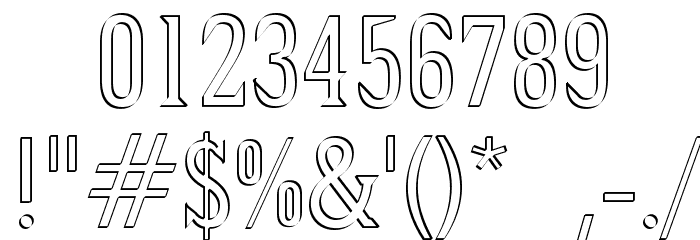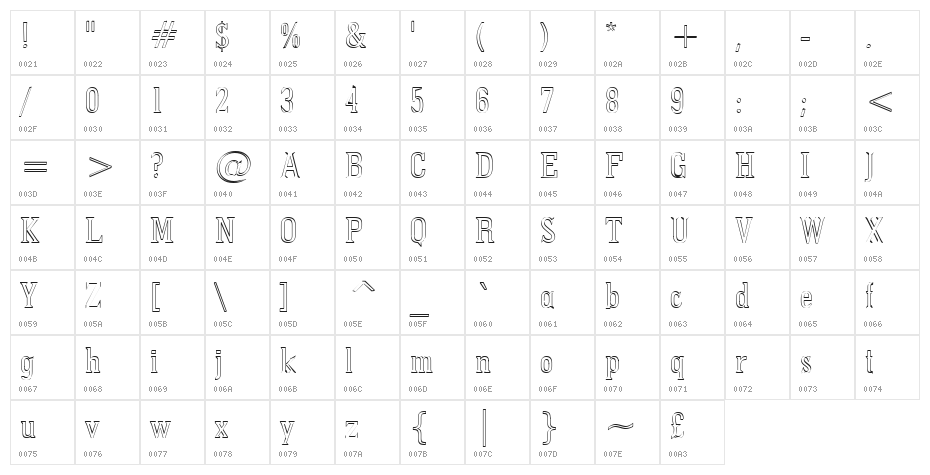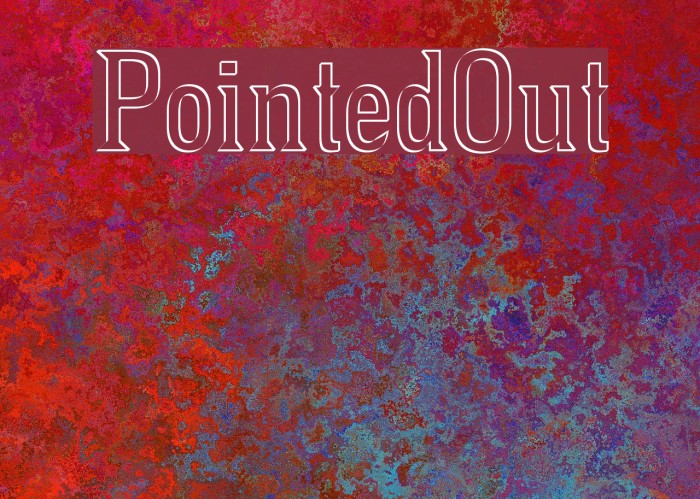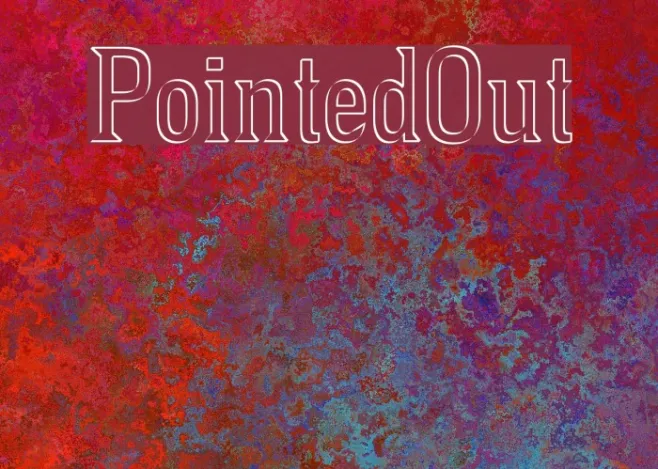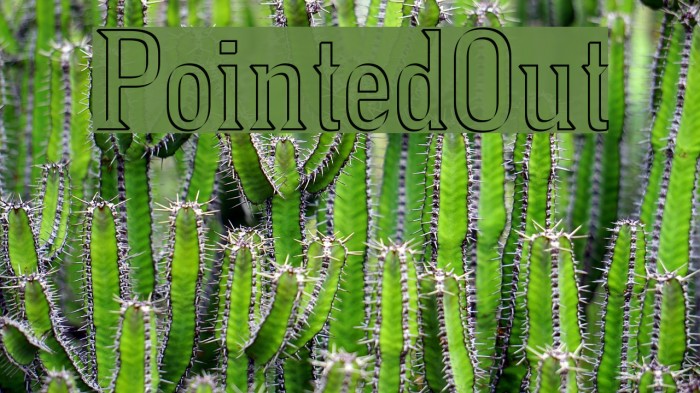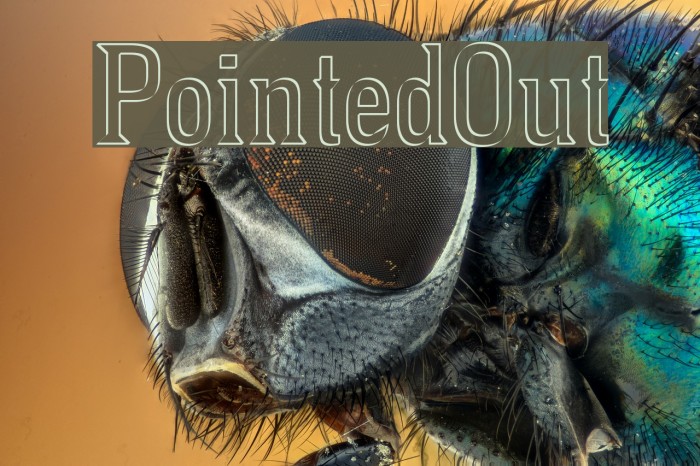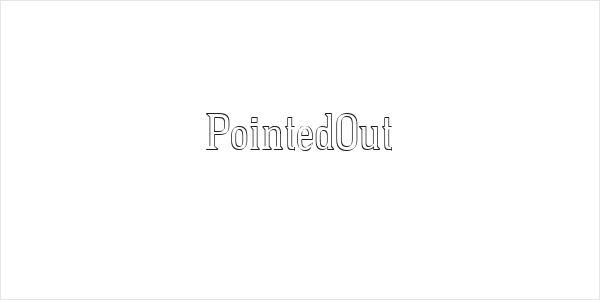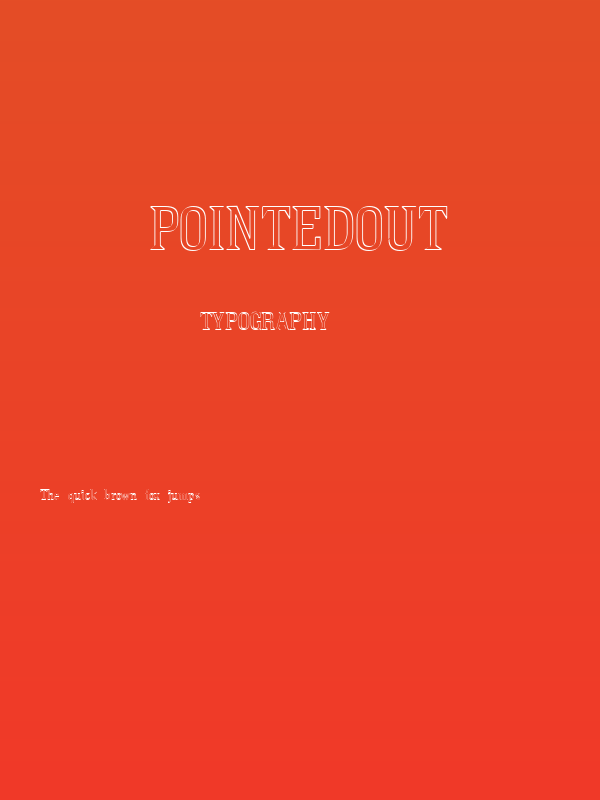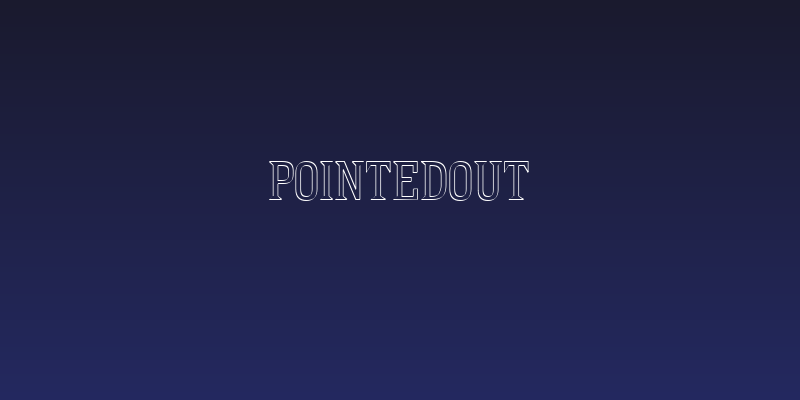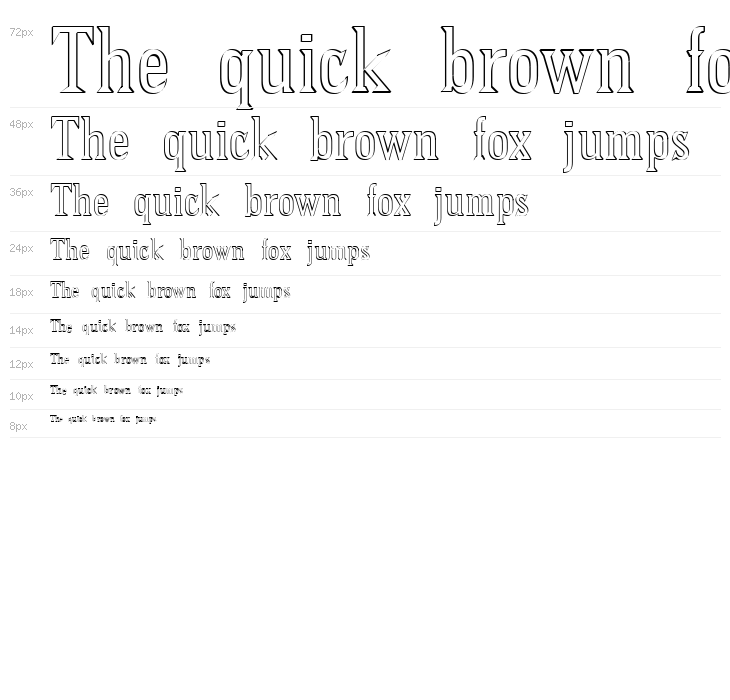
PointedOut Font
PointedOut Description
This font features a distinctive outline style with a modern twist, characterized by its sharp, angular serifs and clean lines. The uppercase letters are bold and commanding, while the lowercase letters maintain a consistent style with slightly softer edges. The numerals are well-proportioned, ensuring readability and balance. Special characters are designed to complement the overall aesthetic, making them suitable for various design applications. The font's unique outline effect gives it a three-dimensional appearance, adding depth and interest to any text. Its versatility makes it ideal for both digital and print media, where a contemporary yet classic look is desired.
Proposed ProjectsIdeal for branding, headlines, posters, and editorial design where a bold statement is needed.